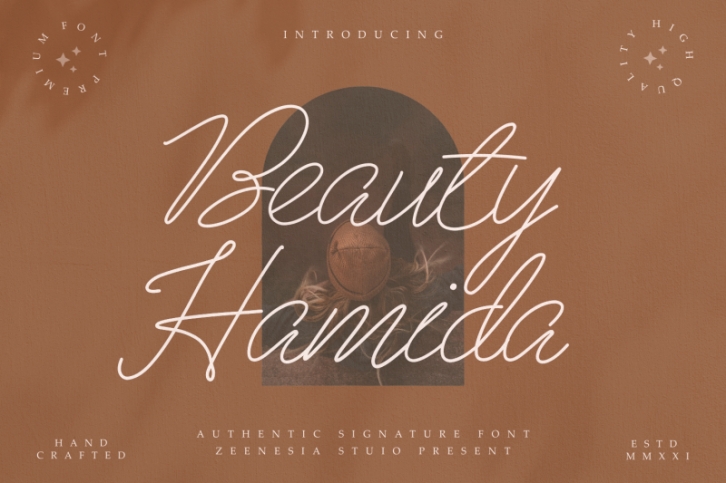
Introducing Beauty Hamida.
Beauty Hamida is a monoline script font with handwritten signature Style. This collection of scripts is perfect for personal branding. this works well for many applications.
Beauty Hamida would perfect for photography, watermark, social media posts, advertisements, logos & branding, invitation, product designs, label, stationery, wedding designs, product packaging, special events, fashion, website or anything that need handwriting taste.